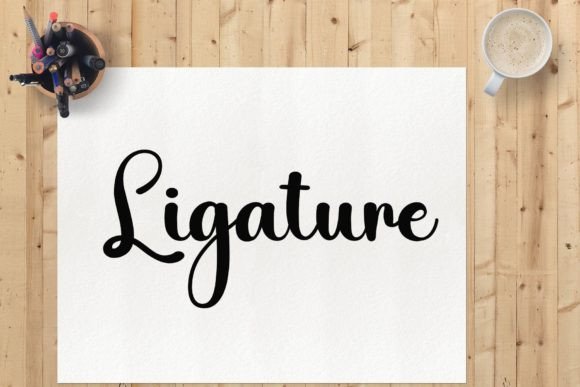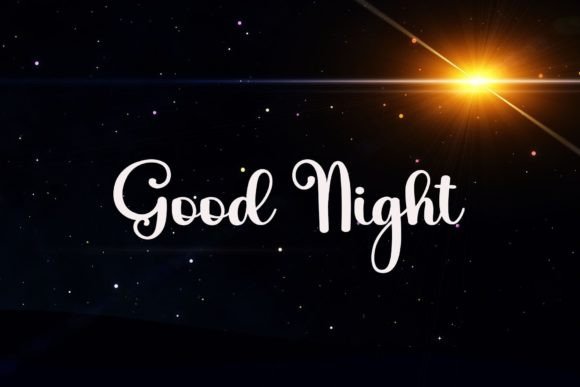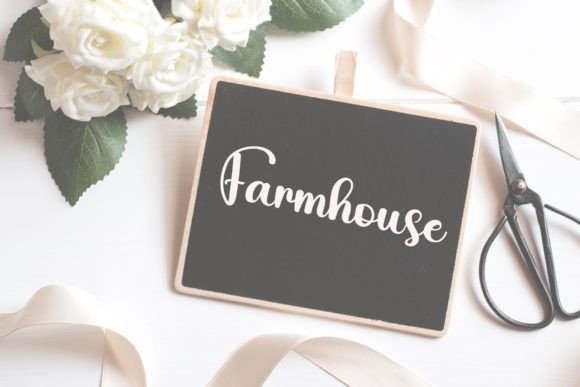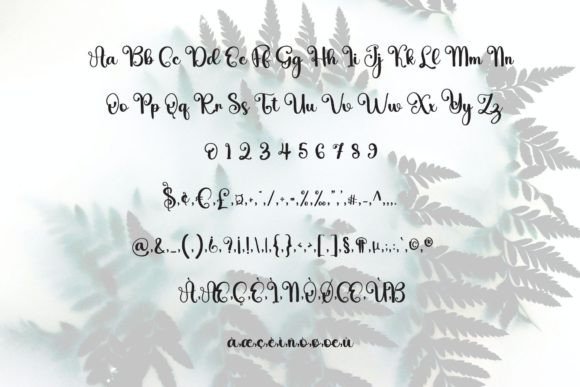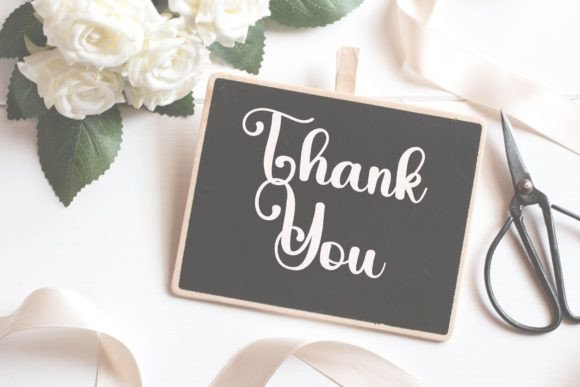
Introduction to Janggly Font
Have you ever stared at a blank page, trying to bring your creative project to life? It’s that moment of uncertainty, when the blank canvas feels more intimidating than exciting, that we all wish we could skip. But, what if I told you that there’s a secret ingredient that can transform your design into a true standout? Enter the Janggly Font, a delightful and charming handwritten font that will make your design ideas shine like never before.
This free download is a game-changer for designers, offering a high-quality design resource that’s perfect for adding a personal touch to any project. With its unique charm and transparent background, the Janggly Font is an absolute must-have for any creative project. Whether you’re designing a social media graphic, a wedding invitation, or a brand logo, this font is sure to elevate your design and make it truly unforgettable.
Key Features of Janggly Font
- Unique, Hand-Drawn Design: The Janggly Font features a distinctive, hand-drawn style that adds a touch of creativity to any design project.
- High-Quality Font: This font is designed with high-quality vectors, making it perfect for use in a variety of creative projects, including print and digital designs.
- Transparent Background: This font features a transparent background, allowing designers to easily layer it over other design elements and achieve a seamless look.
Honest Review: Janggly Font
As a designer, I’m always on the lookout for high-quality fonts that can elevate my creative projects. Recently, I stumbled upon the Janggly Font, and I’m excited to share my thoughts on this design resource.
What works well: ✨ The Janggly Font is incredibly versatile, suitable for a wide range of design projects, from logos to brochures. Its modern, cursive design makes it perfect for adding a touch of elegance to any layout. I also appreciate that it’s available for free download, making it a great addition to any designer’s toolkit.
What could improve: ⚠️ While the font itself is stunning, I found the lack of a transparent background option to be a limitation. This made it challenging to use the font on complex layouts or with images. Additionally, the font’s file size is relatively large, which may slow down design processes.
Overall, I’m impressed with the Janggly Font’s quality and potential. With a few tweaks to address its limitations, I believe it could become a go-to design resource for many creatives.
- Modern, cursive design suitable for various projects
Tips for Getting the Most Out of Janggly Font
Use the Janggly Font in combination with other design resources, such as graphics and images, to create a visually appealing design. Experiment with different font sizes and styles to create a unique look. Consider using the Janggly Font in a design with a transparent background to create a modern and sleek look.
The Janggly Font is commonly used in graphic design, digital art, and creative projects. It is ideal for creating logos, business cards, and other promotional materials. The Janggly Font is also suitable for use in presentations, documents, and websites.